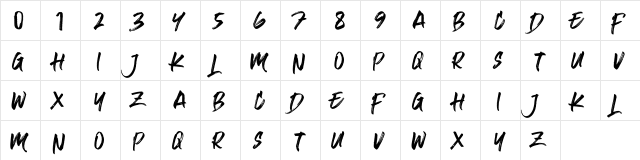
Kulan Regular
| Foundry | Vasgaz Creative |
| Designer | Randi Ilhamsyah // Vasgaz Creative |
Design Context for Kulan Typeface
Kulan is a composed and adaptable typeface that performs quietly and consistently across a wide range of design contexts.